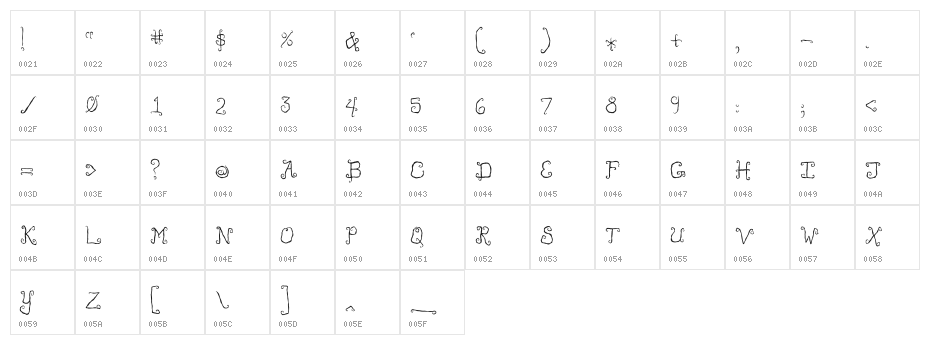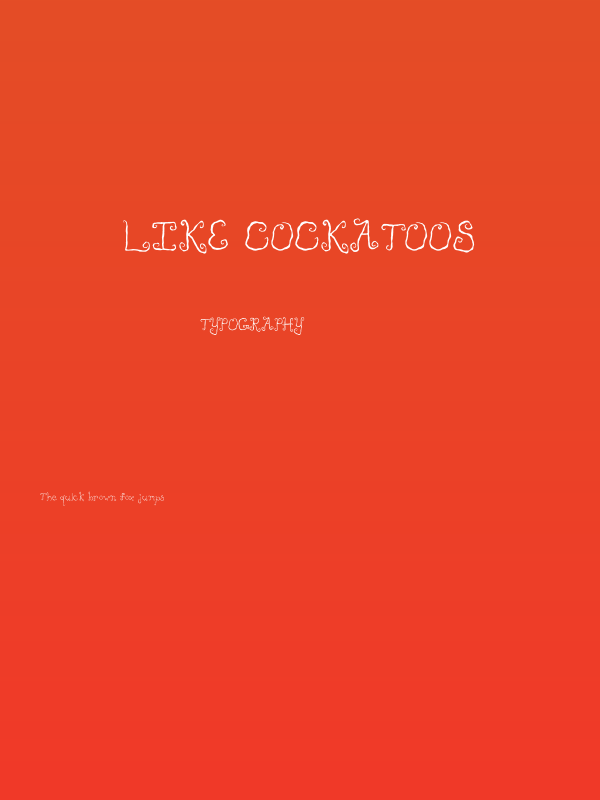
Like Cockatoos Font
Like Cockatoos Description
This whimsical and decorative font features playful, curly serifs and a hand-drawn aesthetic. Each character is adorned with unique, swirling embellishments that give it a lively and artistic feel. The uppercase letters are bold and prominent, while the lowercase letters maintain a consistent style with slightly less emphasis. Numbers and special characters are crafted with the same attention to detail, ensuring a cohesive look across all elements. The font's organic, flowing lines create a sense of movement and creativity, making it ideal for projects that require a touch of whimsy and charm.
Use CaseLogos, Headlines, Artistic projects
Proposed ProjectsIdeal for greeting cards, children's book covers, playful branding, and artistic posters.